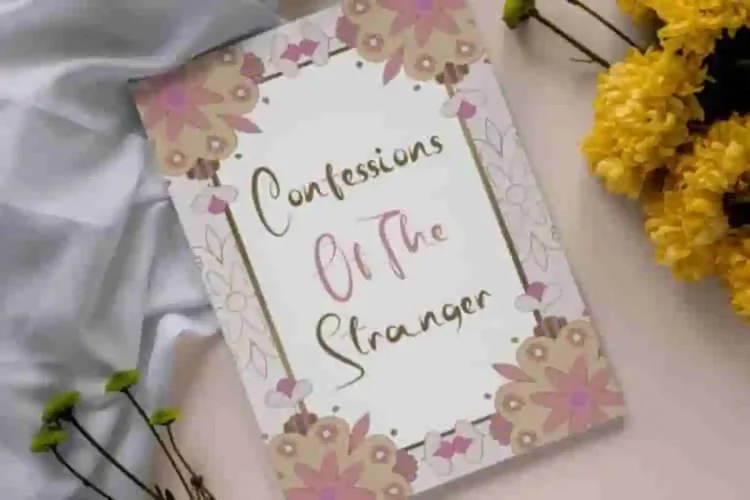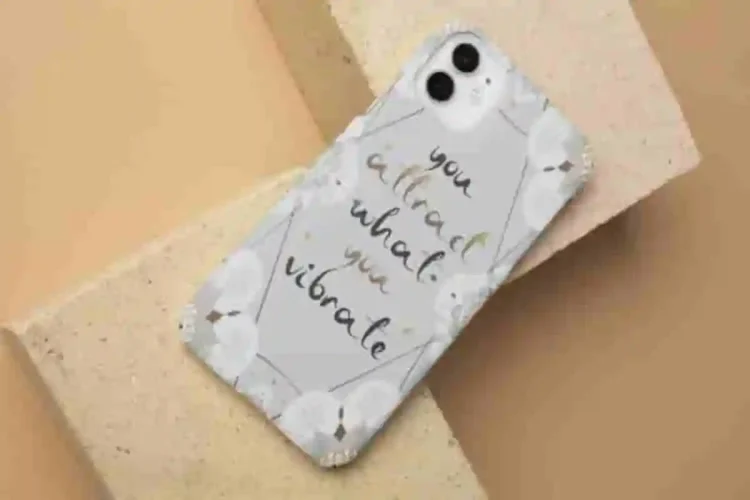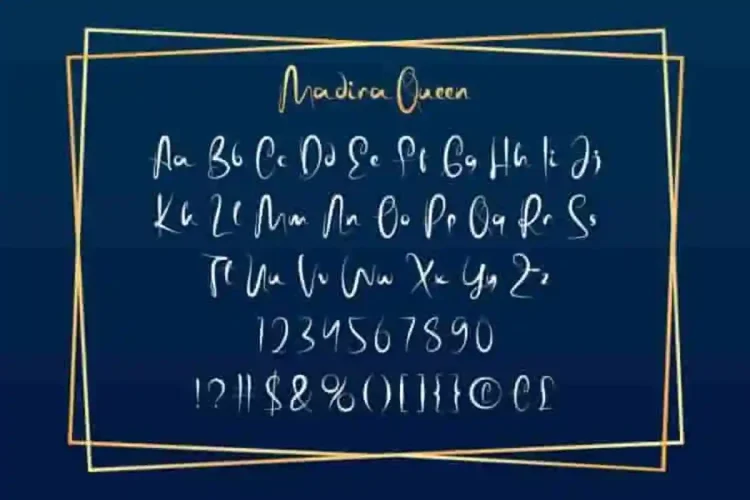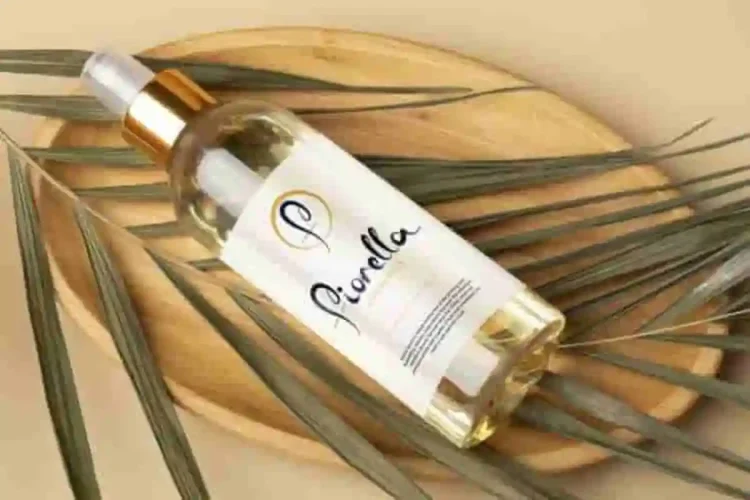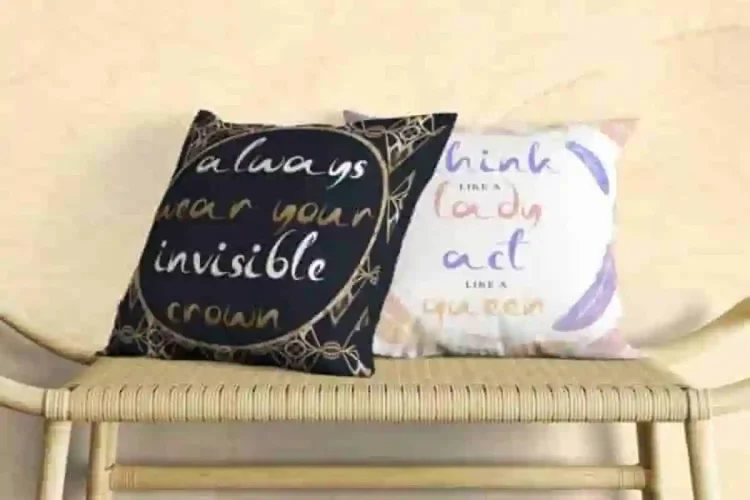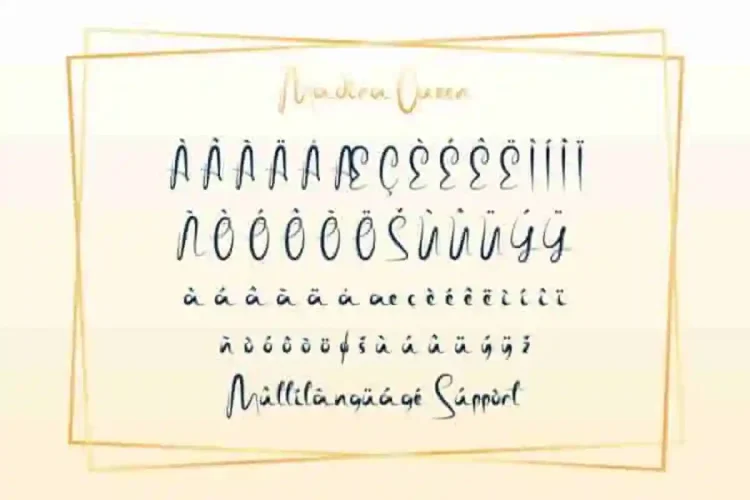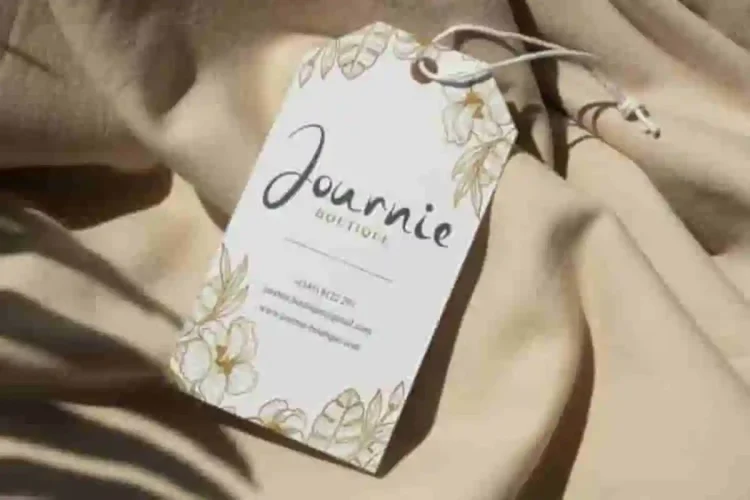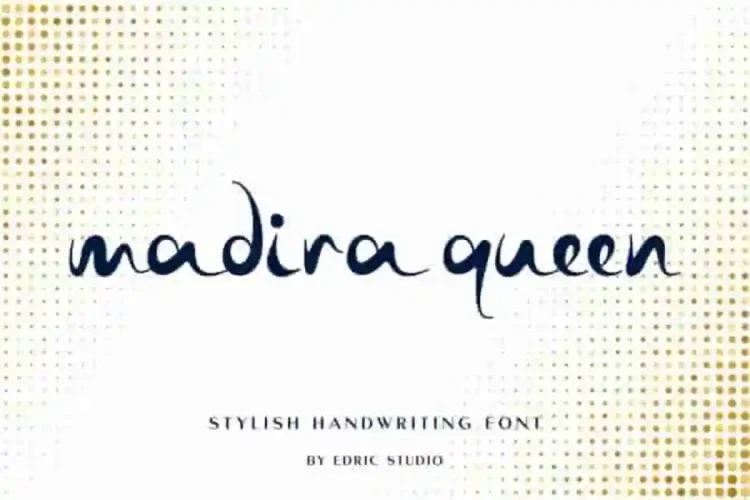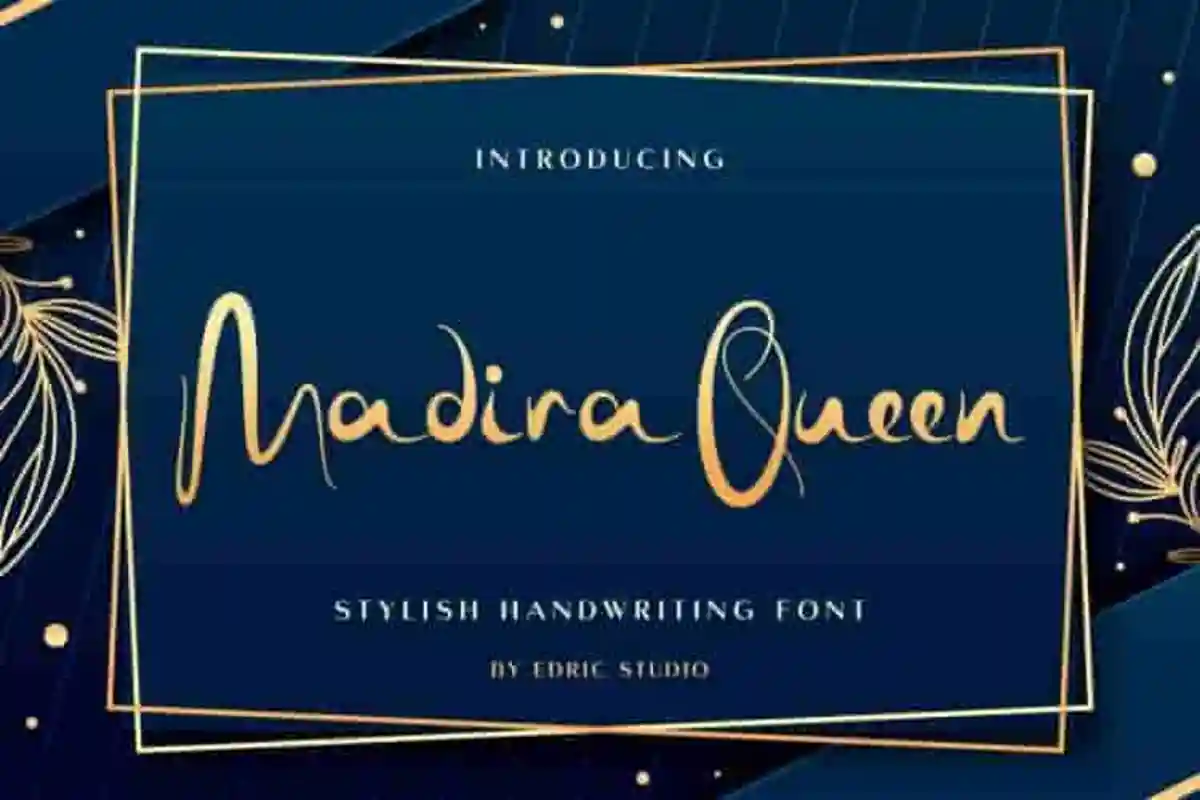
Madira Queen Font is an elegant handwriting font with classy look, exclusively created by EdricStudio. Featuring perfectly balanced bold and thin strokes, this elegant font delivers a stylish, refined look that enhances any creative project.
Madira Queen Font comes with a full set of Uppercase and Lowercase Basic Characters, Number, large range of Punctuation and Symbol. It has a stunning characters set, perfectly managed with well spaced and kerning. Madira Queen Handwritting Font will be great for any projects (with extended license) including : art frame, brand logo, custom case phone, invitations, labels, mockup design, quotes, screen printing, stationery, title, etc.
Madira Queen Font is a playful typeface with unique decoration in each character. Ready to use both on Windows machine or Mac with simple installations. It’s tested to work well in the Adobe Apps (Illustrator, Adobe InDesign, Adobe Photoshop) even work on Microsoft Word. PUA Encode Characters means you can access all the glyphs and other characters easily – Fully accessible without additional design software.